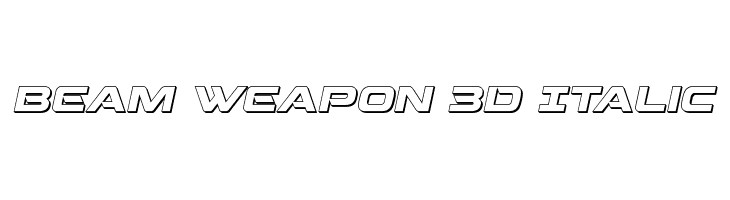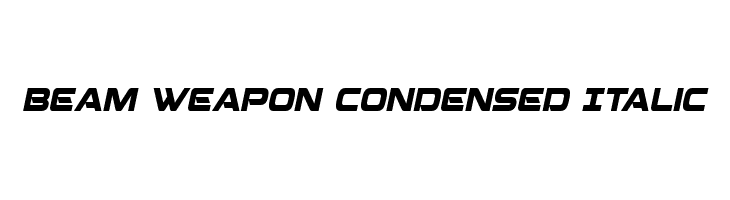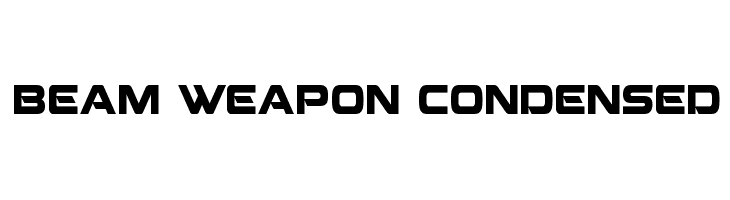
A bold, futuristic font with geometric and technological design elements.
A futuristic, 3D-effect font with geometric shapes and sharp angles.
A bold, futuristic 3D italic font with geometric outlines.
A futuristic, bold, and geometric font with a condensed style.
A futuristic, condensed italic font with bold, angular lines.